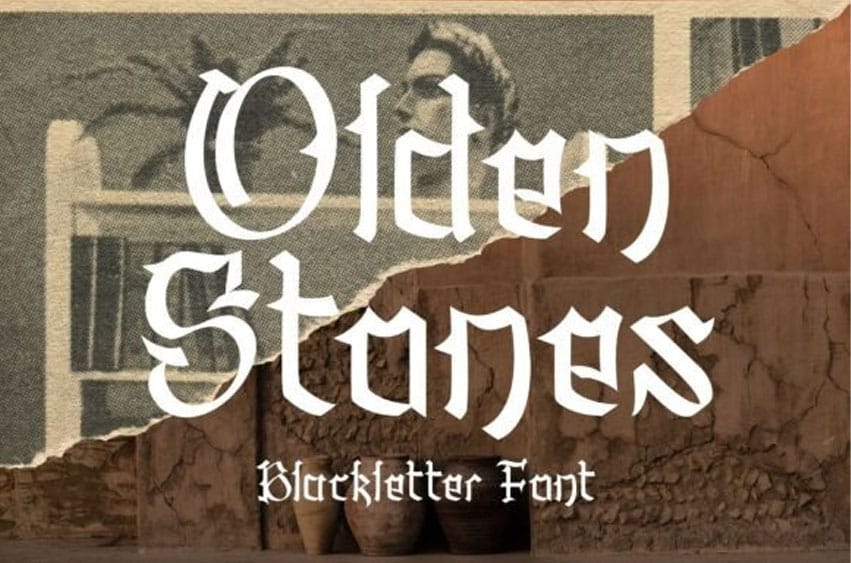
Olden Stones Font
Olden Stones Font is a magnificent blackletter typeface that instantly evokes the grandeur, tradition, and Gothic mystery of medieval times.
This classic blackletter style is characterized by its high-contrast strokes, dramatic angular terminals, and beautiful, ornate flourishes, ensuring a striking and historic appearance.
The Olden Stones typeface is perfect for projects requiring a sense of deep heritage, formality, or dark, ancient power, making it a natural fit for craft beer labels, band logos, historical documents, or fantasy literature covers. The complex and visually rich nature of the Olden Stones font ensures that any headline or title becomes an instant piece of art, demanding attention with its intricate design.
This versatile and dramatic gothic font includes all the necessary glyphs to maintain an authentic and detailed old-world feel, delivering unparalleled visual weight and historical authenticity to any design